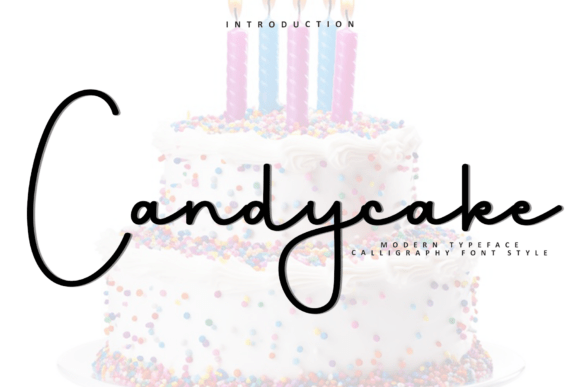
The Sweet Spot: Discovering the Charm of Candycake Font
I’ll never forget the time I was working on a project for a client who wanted a whimsical, playful vibe. I had spent hours browsing through font libraries, but nothing seemed quite right. That was until I stumbled upon Candycake Font. Its soft, unique touch immediately caught my eye, and I knew I had found the perfect fit. In this article, I’ll share my experience with Candycake Font, its features, and how to make the most of it in your designs.
A First Impression: What Makes Candycake Font Special
Candycake Font is a beautiful and eye-catching font designed with a soft, unique touch. Its distinctive strokes give it a special character, making it meaningful and versatile for future use. With various characters, itβs perfect for design projects, crafts, and other creative works. Compatible with various applications, including Windows and open-source platforms, this natural font style is ideal for a wide range of products.
Here’s what I love about Candycake Font:
- β¨ Unique and eye-catching design
- π¨ Perfect for design projects, crafts, and creative works
- π Great for a wide range of products and audiences
And here are some small quirks or limitations:
- π€ Limited availability of certain characters
- β οΈ May not be suitable for very formal or professional designs
Candycake Font was designed with the intention of creating a unique, eye-catching font that’s both playful and elegant. The designer aimed to craft a font that’s versatile and compatible with various applications, making it perfect for a wide range of creative projects.
| What is Candycake Font? | Candycake Font is a beautiful and eye-catching font designed with a soft, unique touch. |